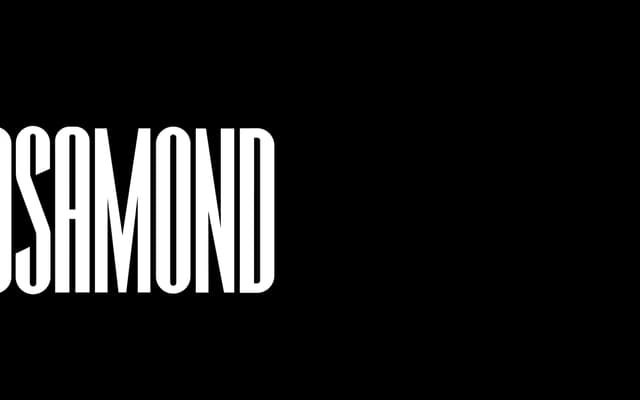
An all-caps ultra-condensed modern display face built for large-scale headline use.
A single-weight, all-caps ultra-condensed typeface designed for maximum impact at headline sizes. The character set covers capitals, numerals and punctuation, keeping the scope tight and the intent clear. Best suited to posters, title cards and editorial headers where vertical compression and strong vertical stress do the heavy lifting.
An all-caps ultra-condensed modern display face intended purely for large headlines, placing it firmly in the display category with a condensed modern subcategory.